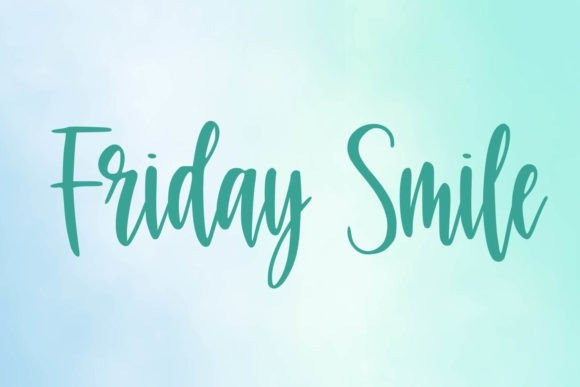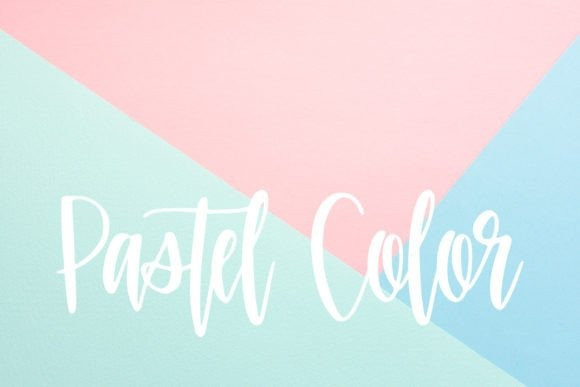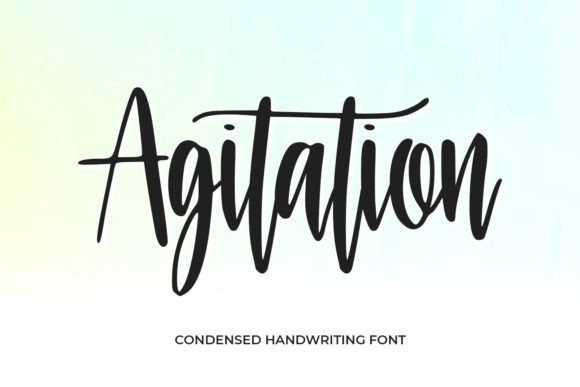
Agitation Font
Agitation Font a fresh and condensed handwritten font –It is great for lettering, quotes, mugs, tote bag designs, cards, banners, social media, and anything of craft projects that needs a natural touch.